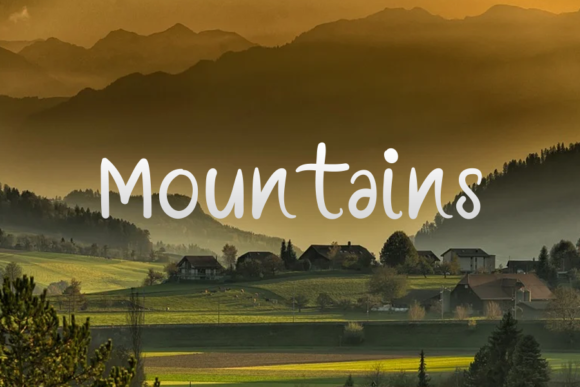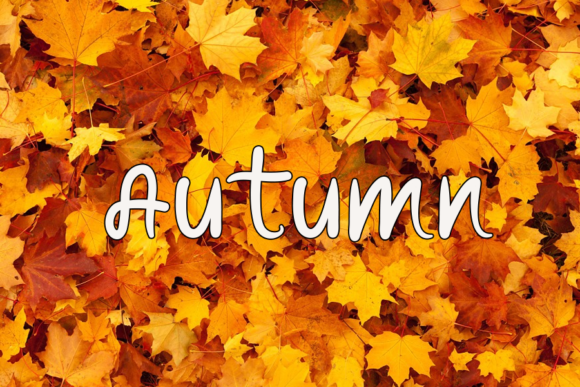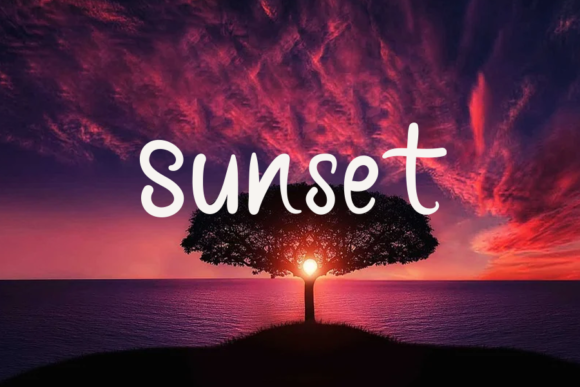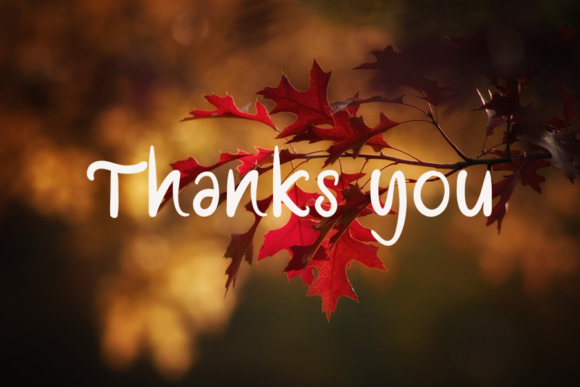
About Dream House Font
Dream House is a sweet and whimsical handwritten font. Its natural and unique style makes it incredibly fitting to a large pool of designs. Have fun with this beautiful font and explore its endless variations.